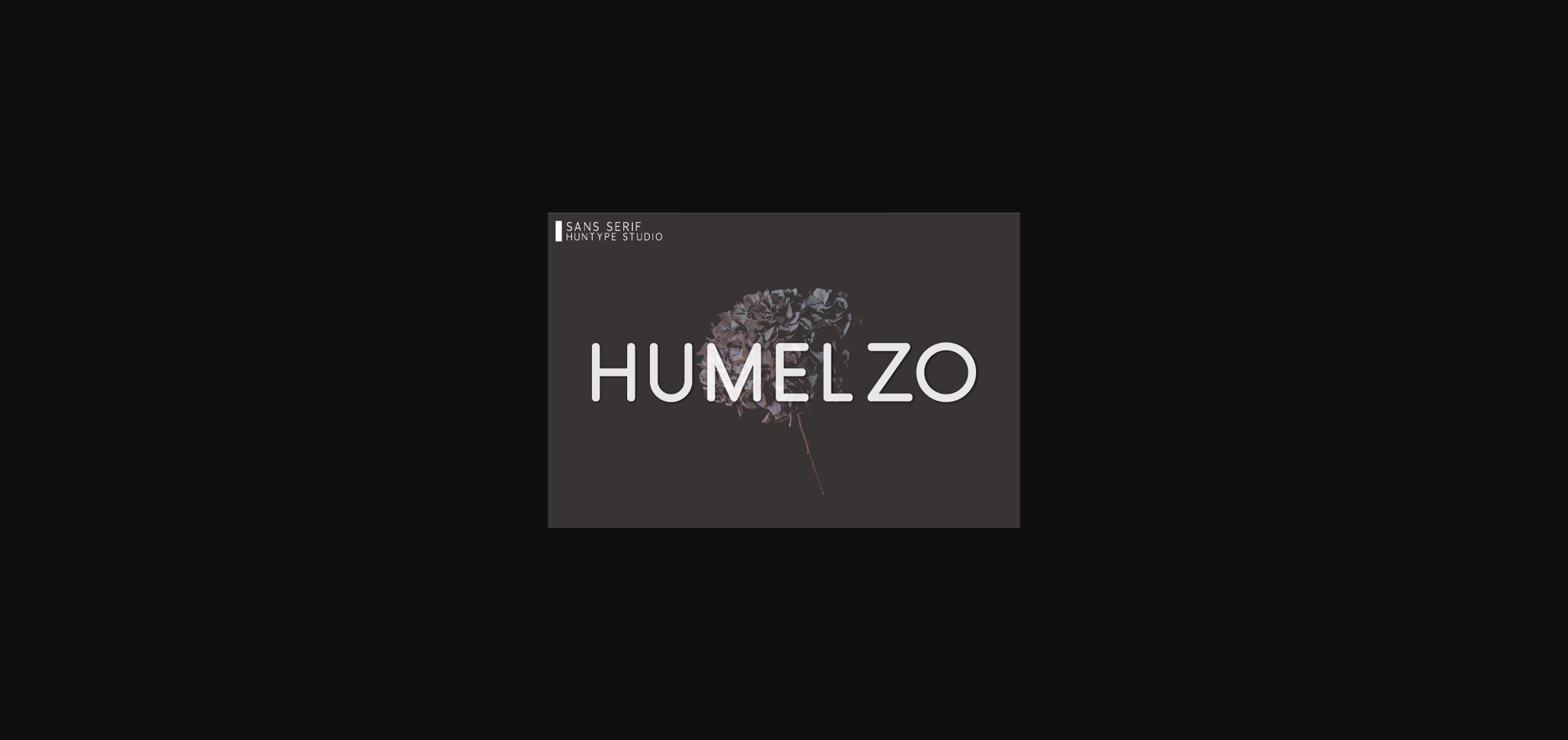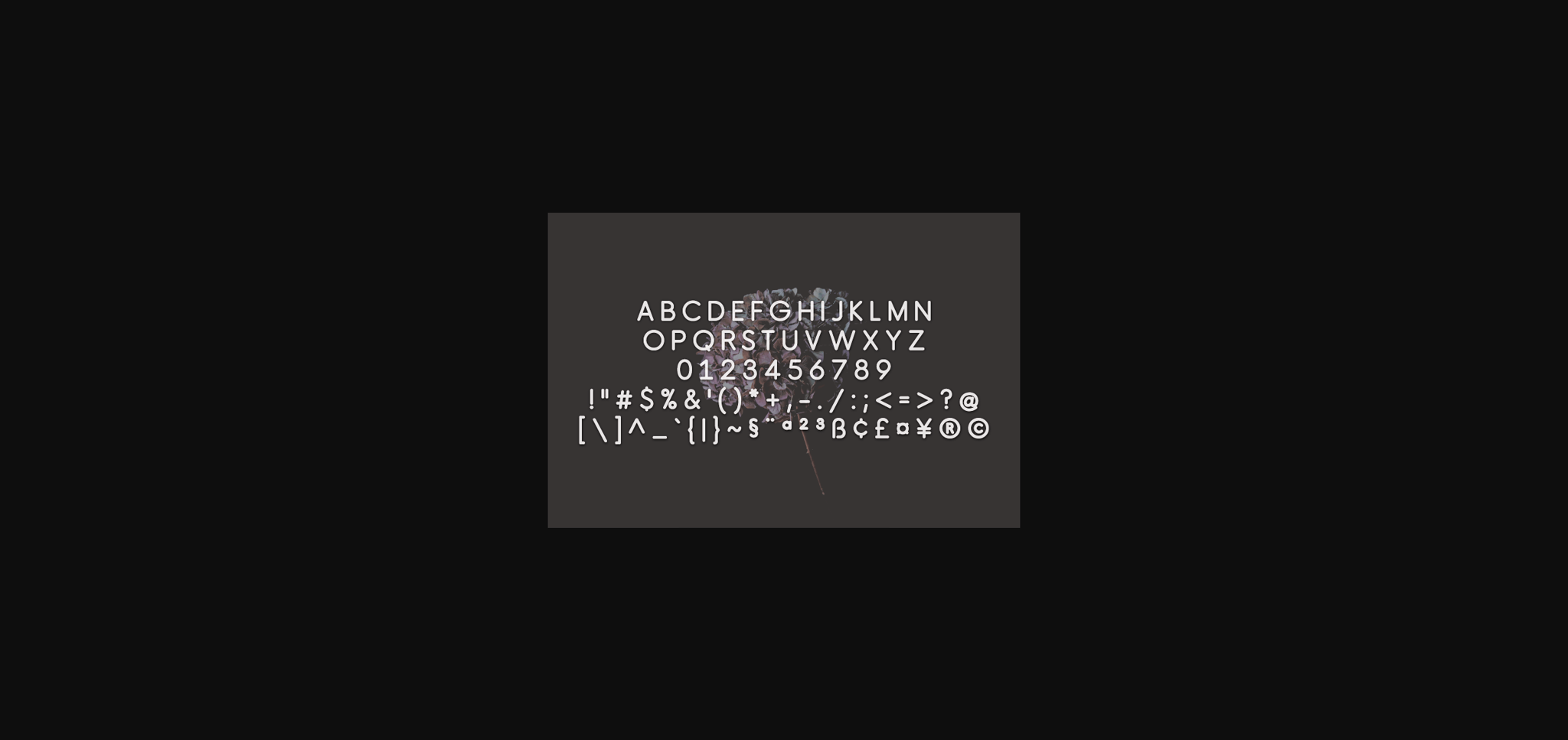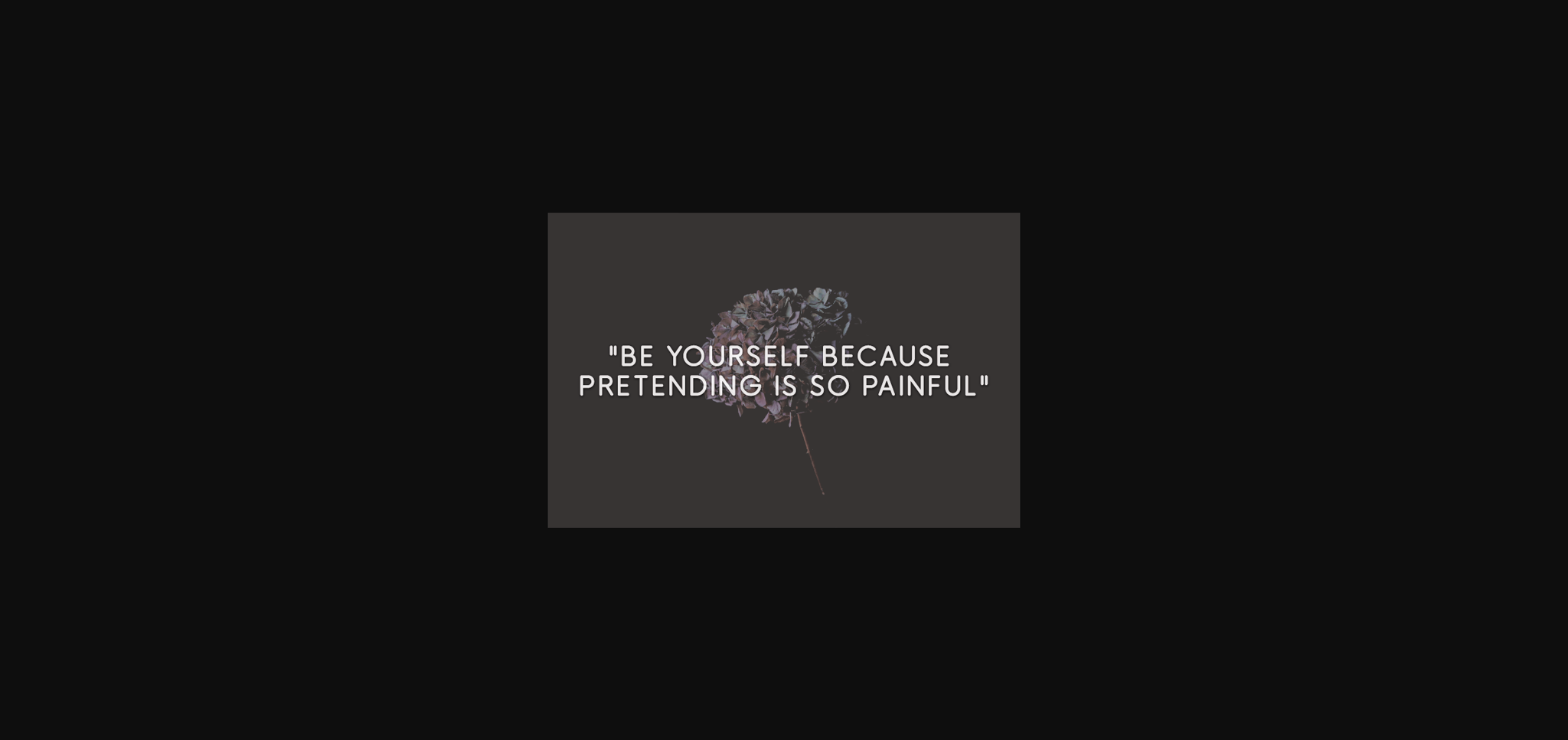
About Humelzo Font
Humelzo is a simple and neat lettered sans serif font. It works great for logos, branding, and web headings. Add it confidently to your projects, and you won’t be disappointed.